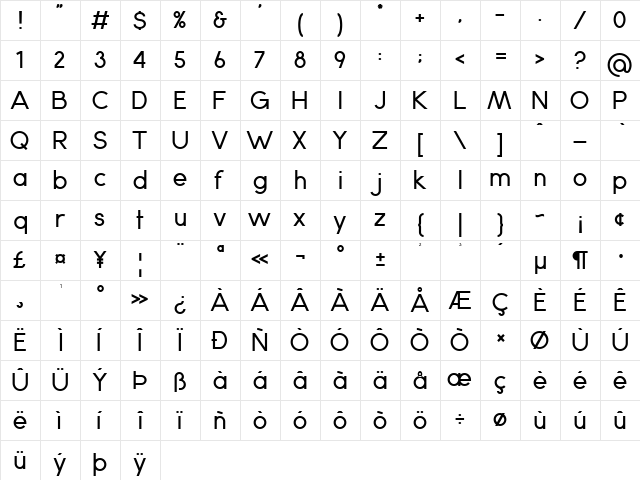
Anke Regular
| Foundry | Noe Araujo |
| Designer | Noe Araujo |
Design Context for Anke Typeface
Anke offers clean, dependable letterforms without strong stylistic allegiance, making it a practical choice for designers who need flexibility.